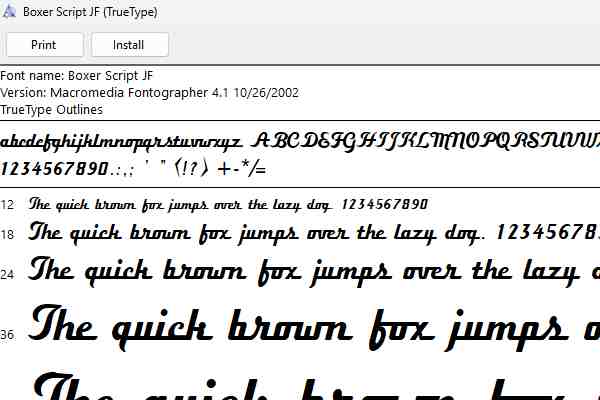
Foo Fighters are an American rock band who first formed in Seattle back in 1994. Dave Grohl is the lead singer and best known member of the band - he also plays rhythm guitar. Some of the bands best known and most loved songs include: This Is a Call (from their debut album: Foo Fighters, released in 1995), Learn to Fly (There Is Nothing Left to Lose, 1999), and Best of You (In Your Honor, 2005).
The font that closely resembles the lettering used in the official Foo Fighters logo is a typeface by the name of Boxer Script JF. It was designed by an independent font designer by the name of Jason Walcott in 1997, and was published by Jukebox Type font foundry. The typeface includes a full collection of uppercase, lowercase, numeric, and special character glyphs. This replica Foo Fighters font uses a cursive style, that has an aesthetic look and feel, while still maintaining a high degree of legibility.